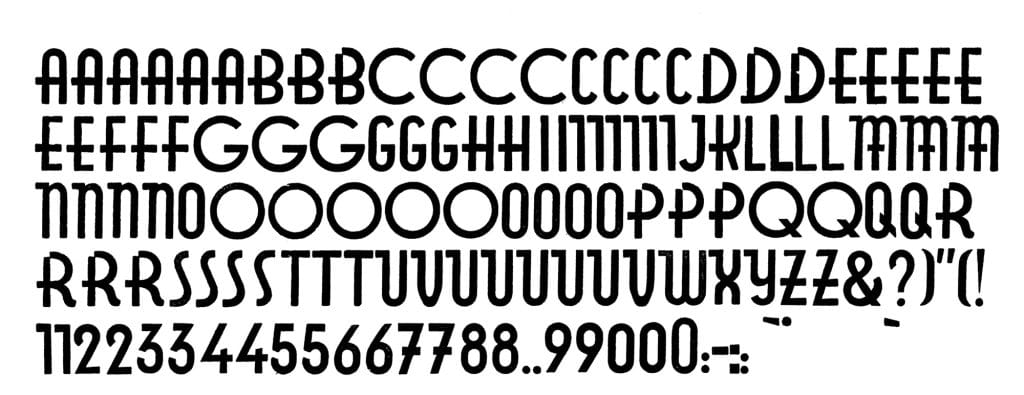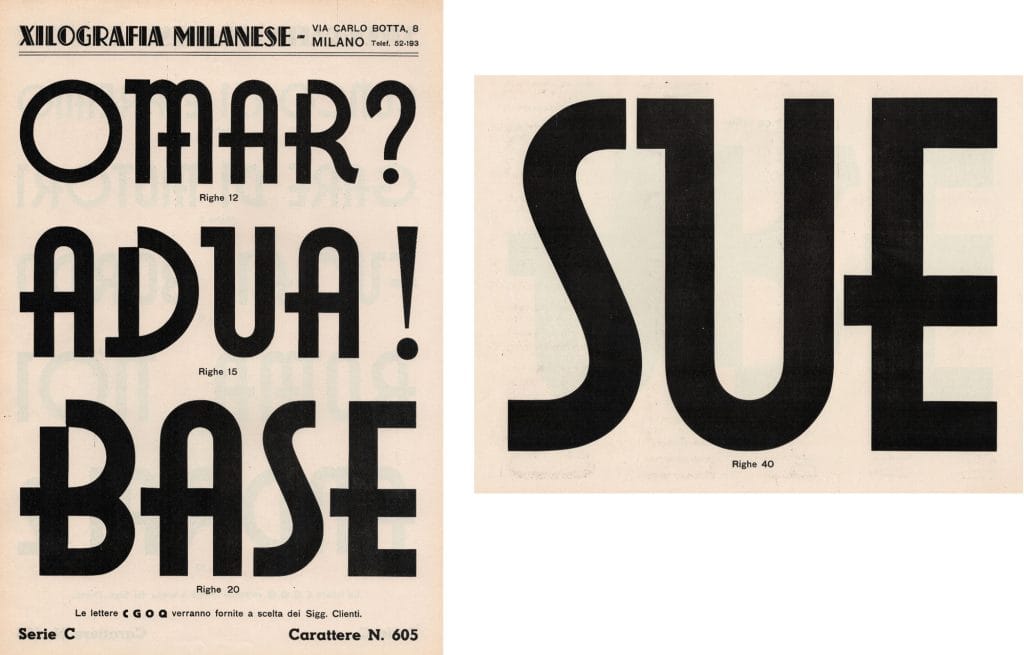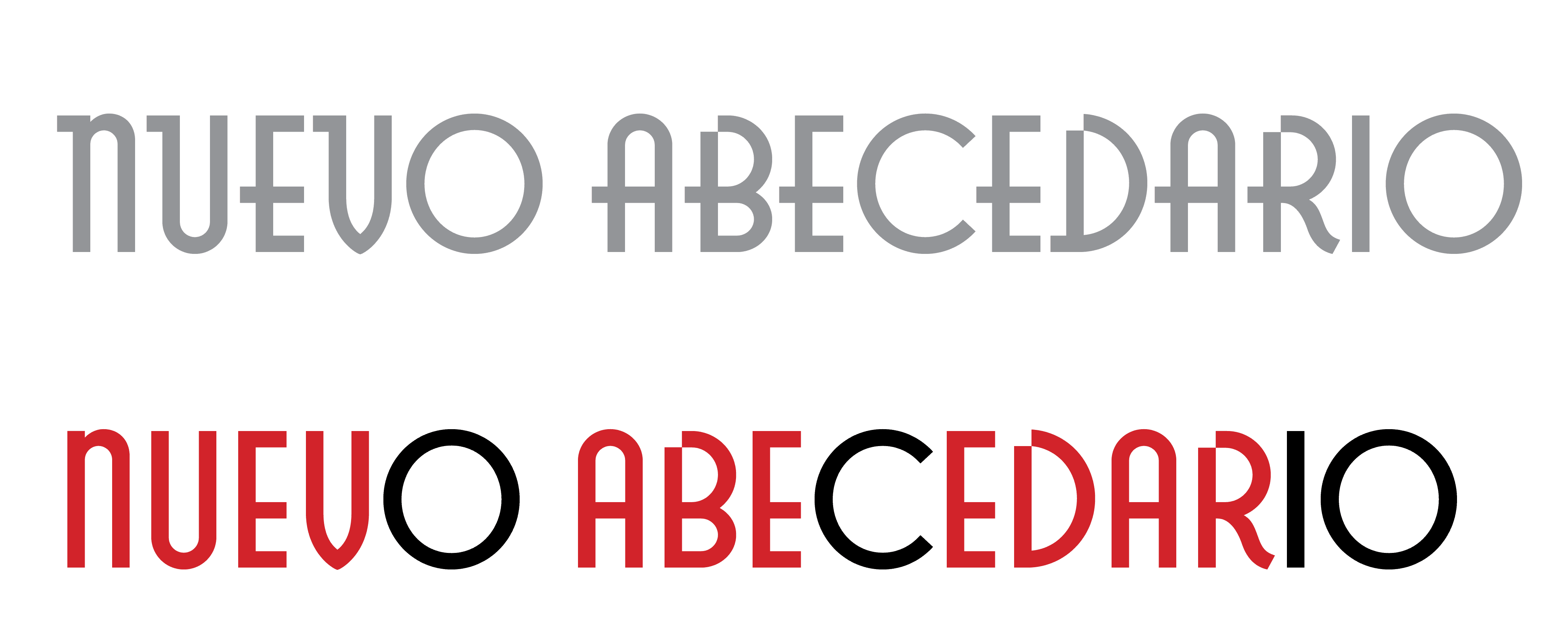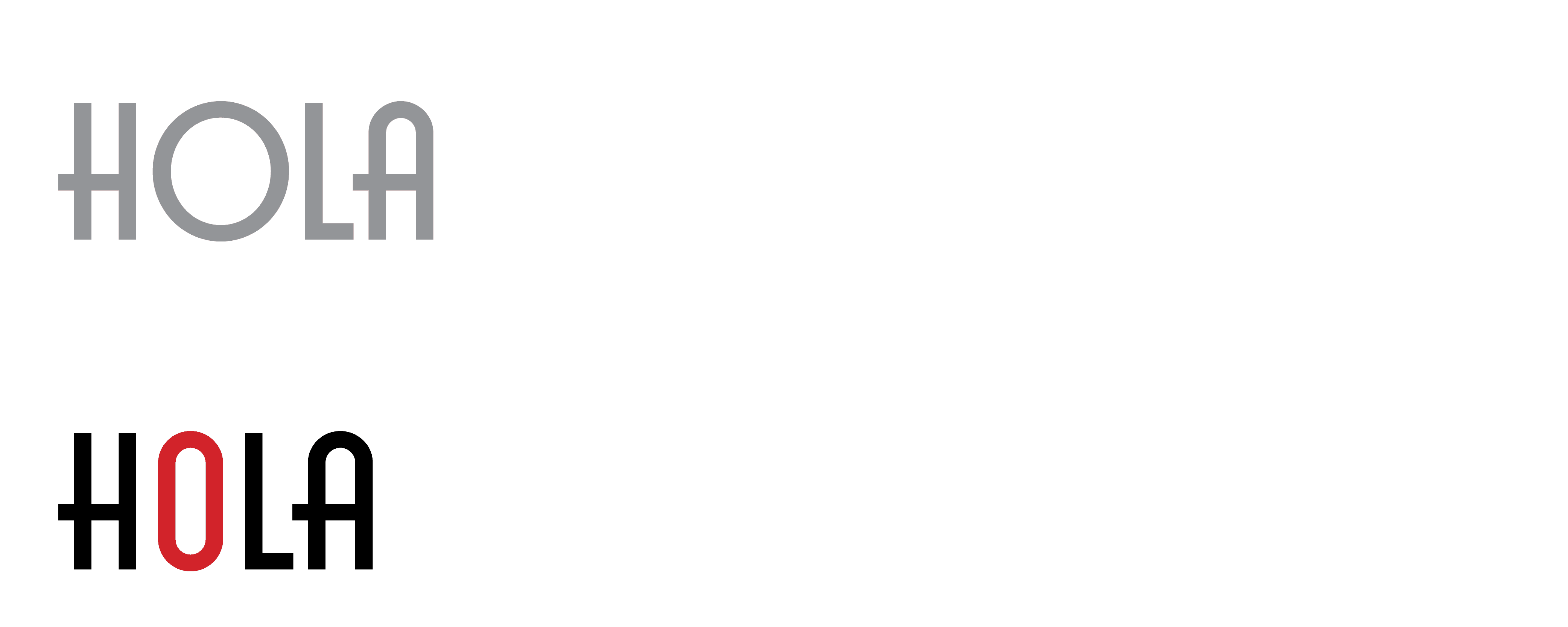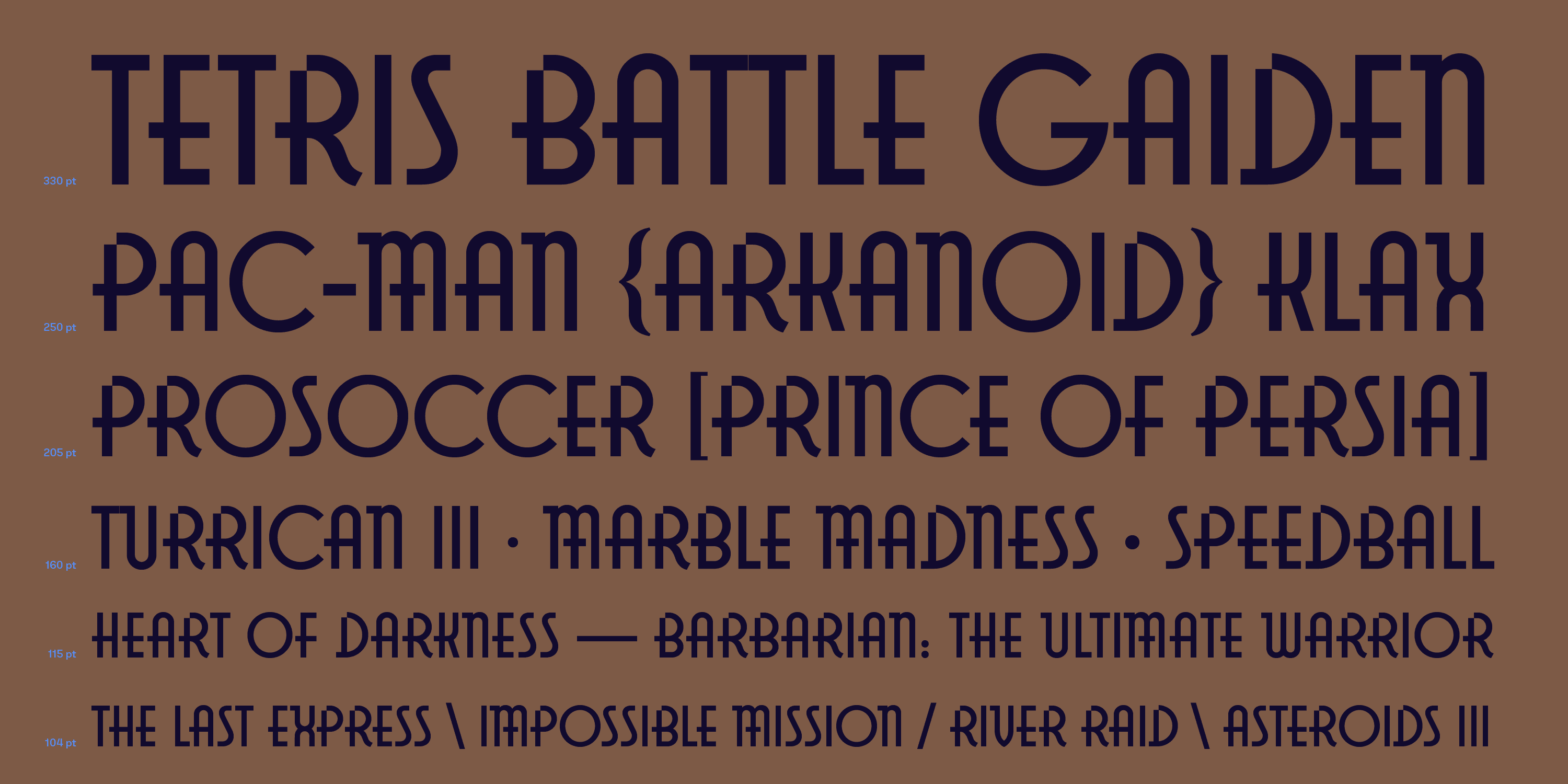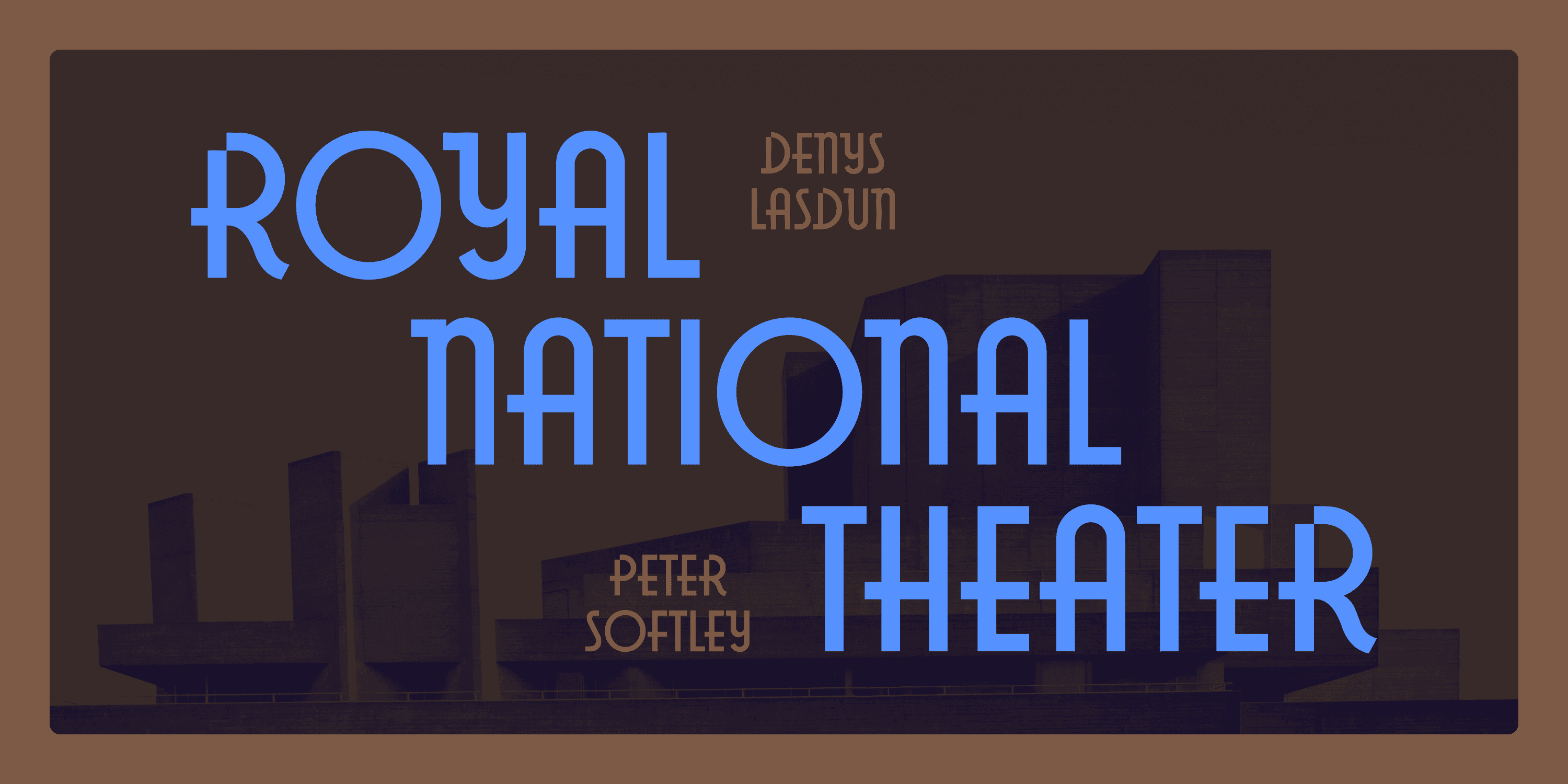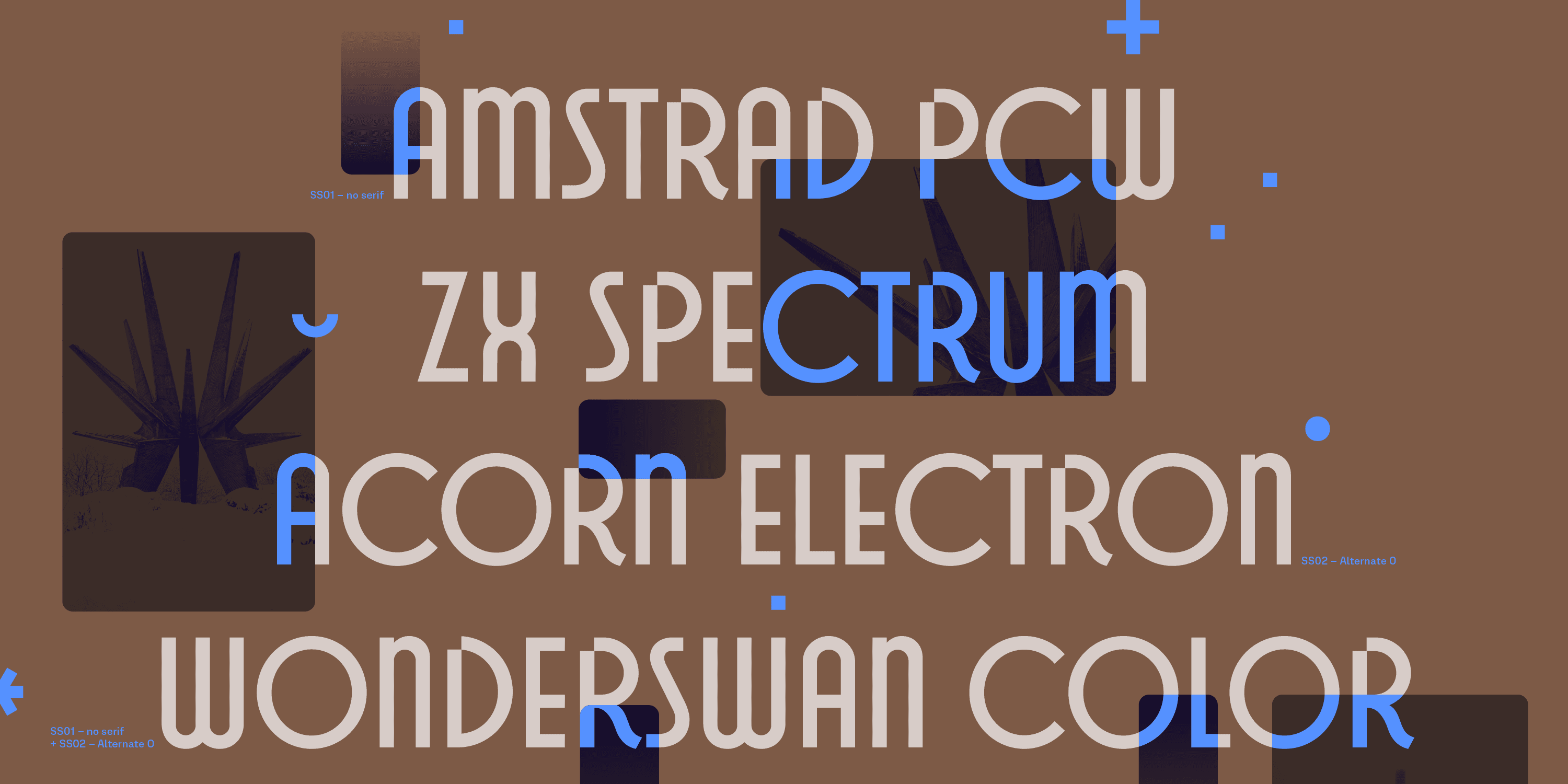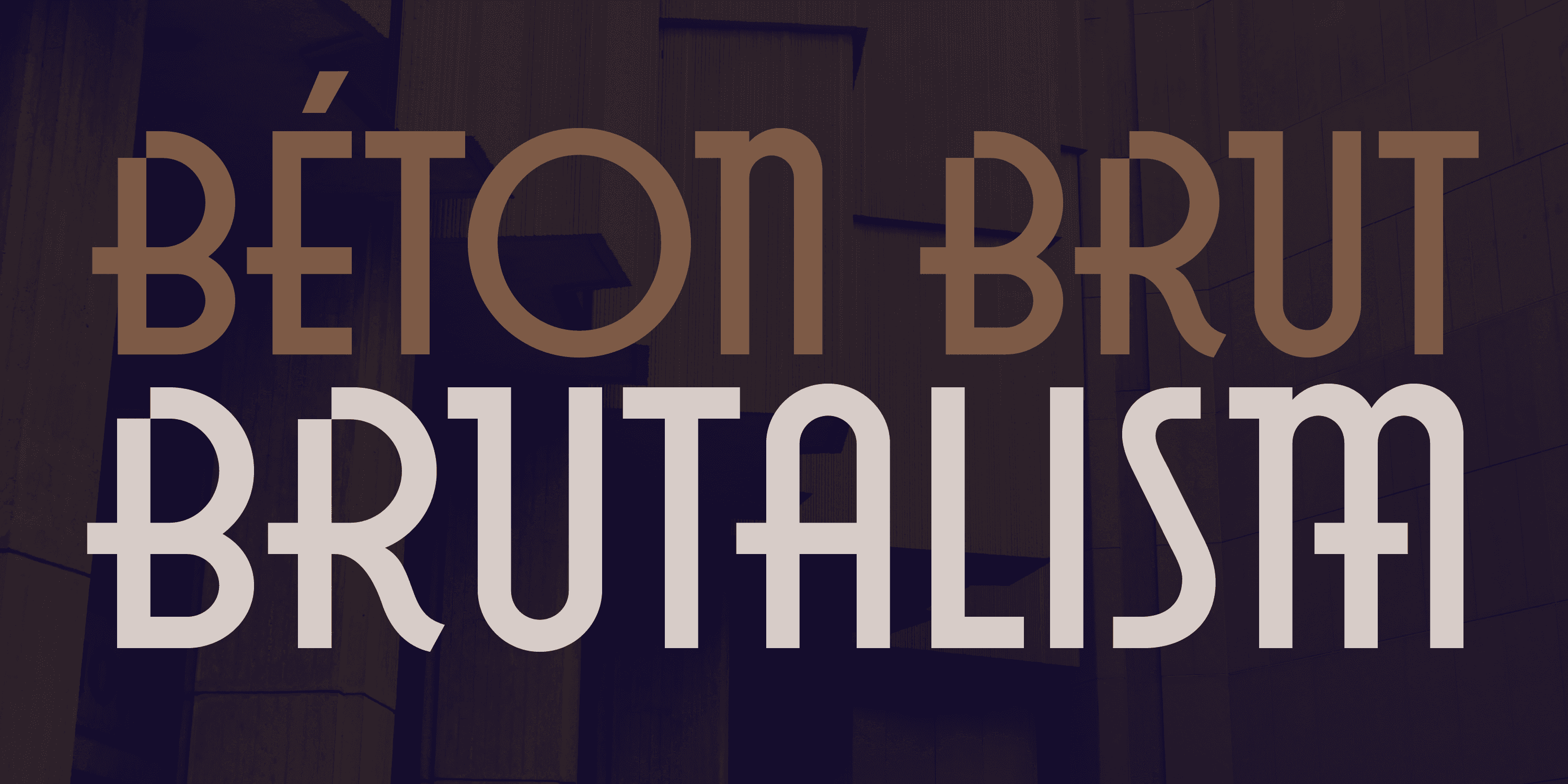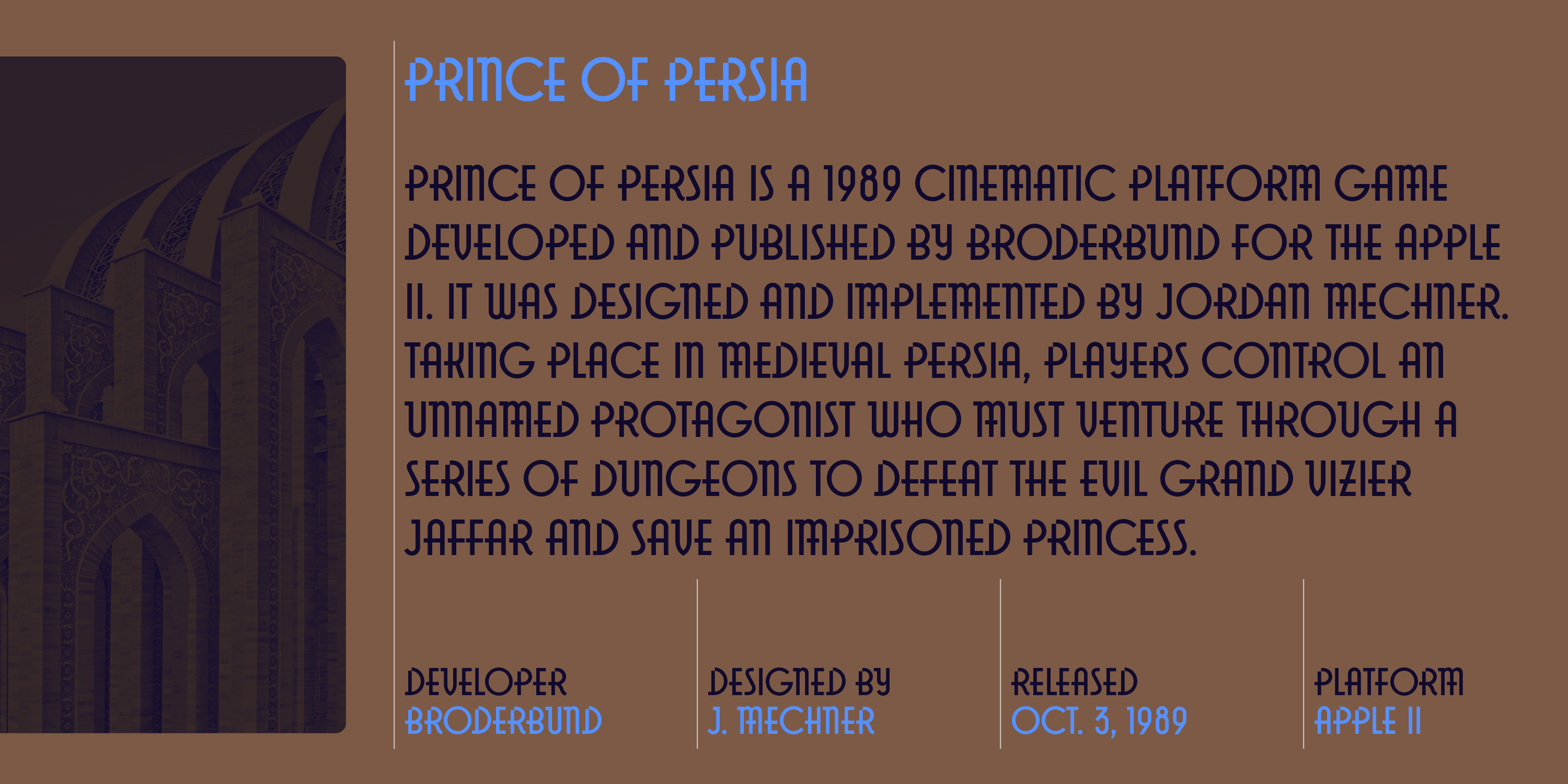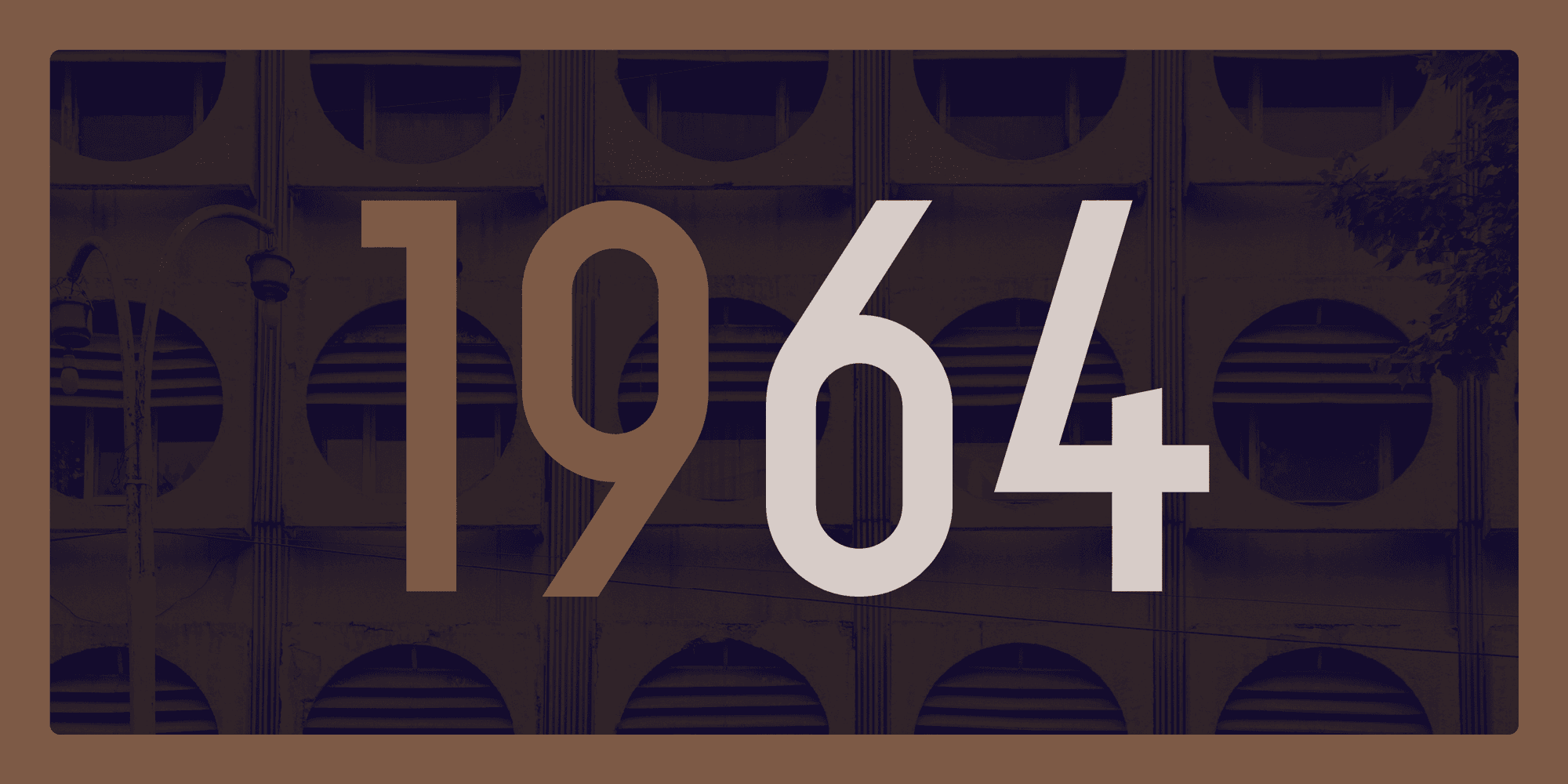
Serie 605
Serie 605 is an all-caps geometric sans with some distinguishing features such as the horizontal strokes extending leftwards from the stems in the central bar in A, B, E, F, H, K, P, R and on both sides of the stems of M (M and N follow the lowercase shapes), as well as the diagonal of Z. Typical Art Deco hallmarks are circular C, G, O and Q, which contrast with the other condensed letters, and the rounded apex of A. The missing upper left corners of B, D, P and R seem to conjure up digital pixels and are another particularly felicitous extravagance of Serie 605.
Alessandro Bombieri
Serie 605 was produced as a wood type by the Xilografia Milanese some time between 1938 and 1940. With the inclusion of lowercase M and N within an uppercase design, Serie 605 follows in the footsteps of some of the most popular typefaces of the time, such as Nebiolo’s Udine series – not to mention their bestseller, Neon.
‘The AM Serie 605 digital revival remains faithful to the original design while incorporating a number of subtle refinements’ says the designer Alessandro Bombieri. ‘In addition to expanding the character set to suit modern typographic needs, several of Serie 605’s distinctive features have been carefully refined. For example, the horizontal strokes extending beyond the stems have been shortened and standardised for consistent appearance. Optical adjustments have been introduced to improve overall balance, such as overshooting and restrained stroke modulation. Every effort was made to maintain the clarity of the geometric shapes, enhancing the typeface design’s overall cohesion and harmony.’ Narrow alternatives that follow the width of the rest of the letters are also provided for the wide C, G  and O. Finally, AM Serie 605 also includes a stylistic set without the horizontal strokes extending from the stems. In the designer’s words, these are intended ‘to offer a more orderly interpretation of the typeface’.
No serif style (SS01)
Alternate O (SS02)